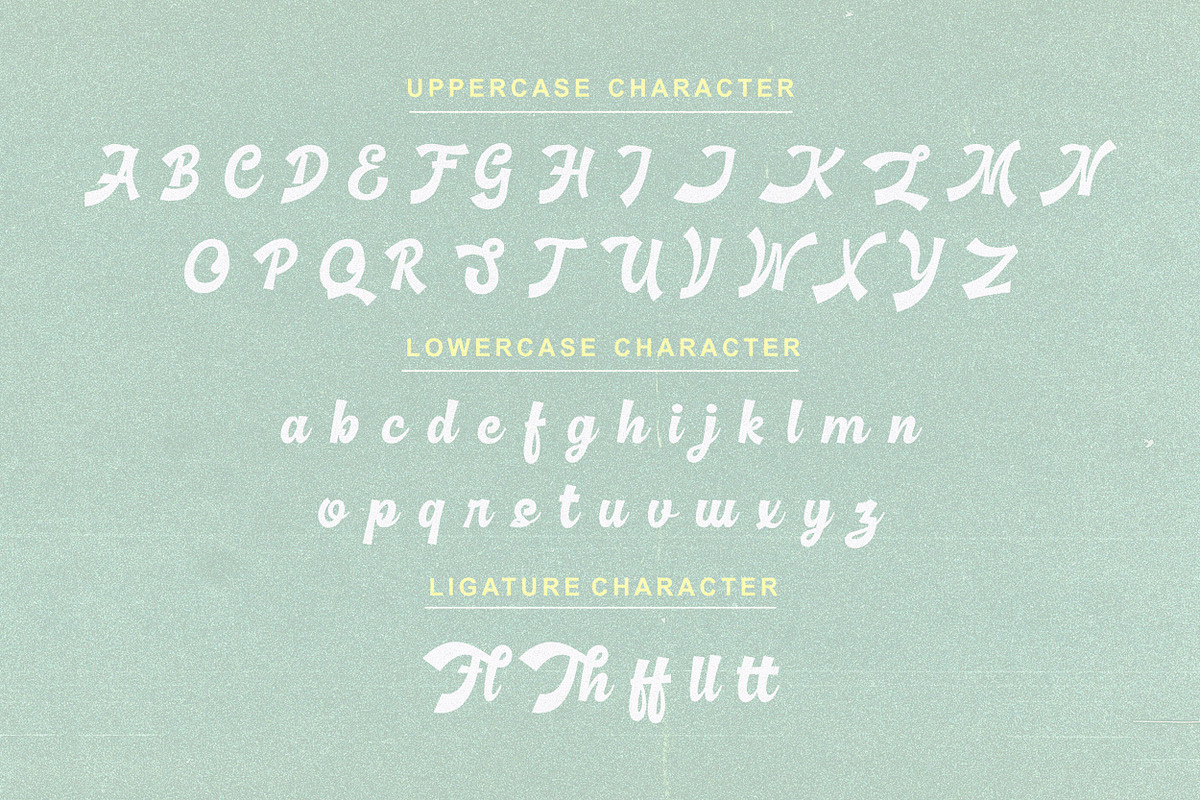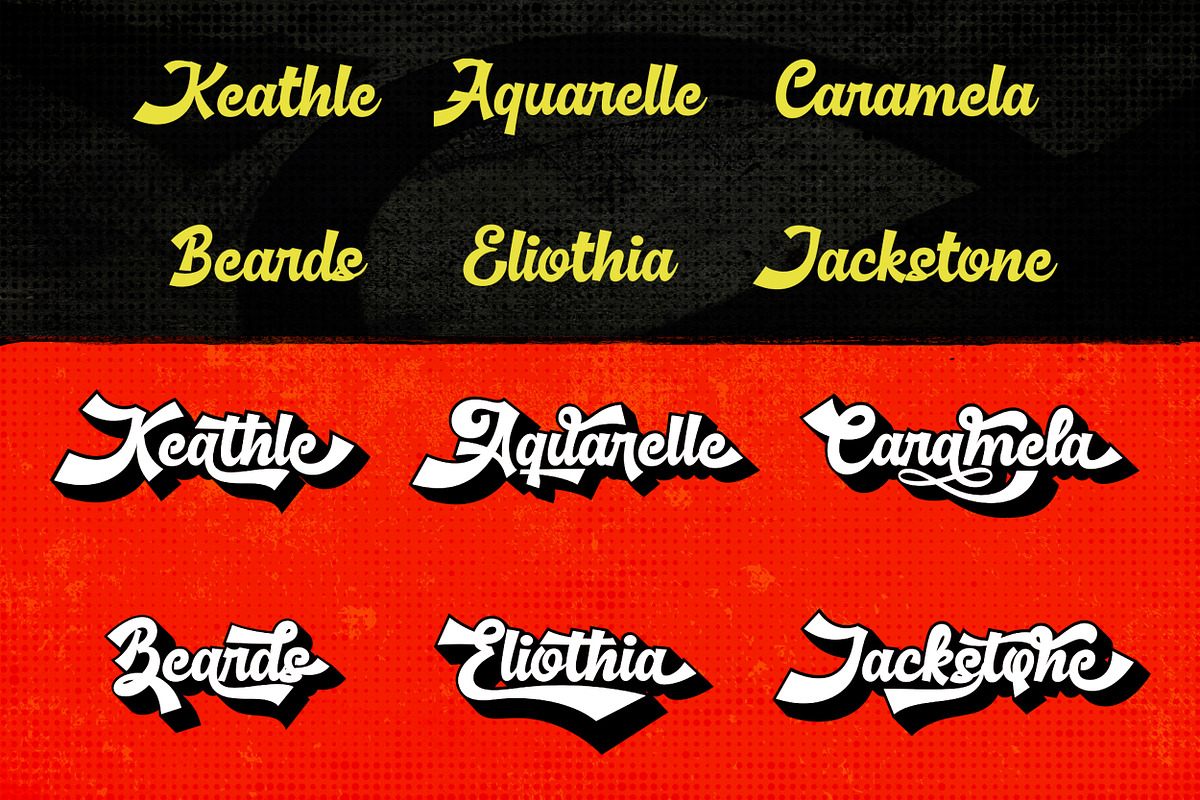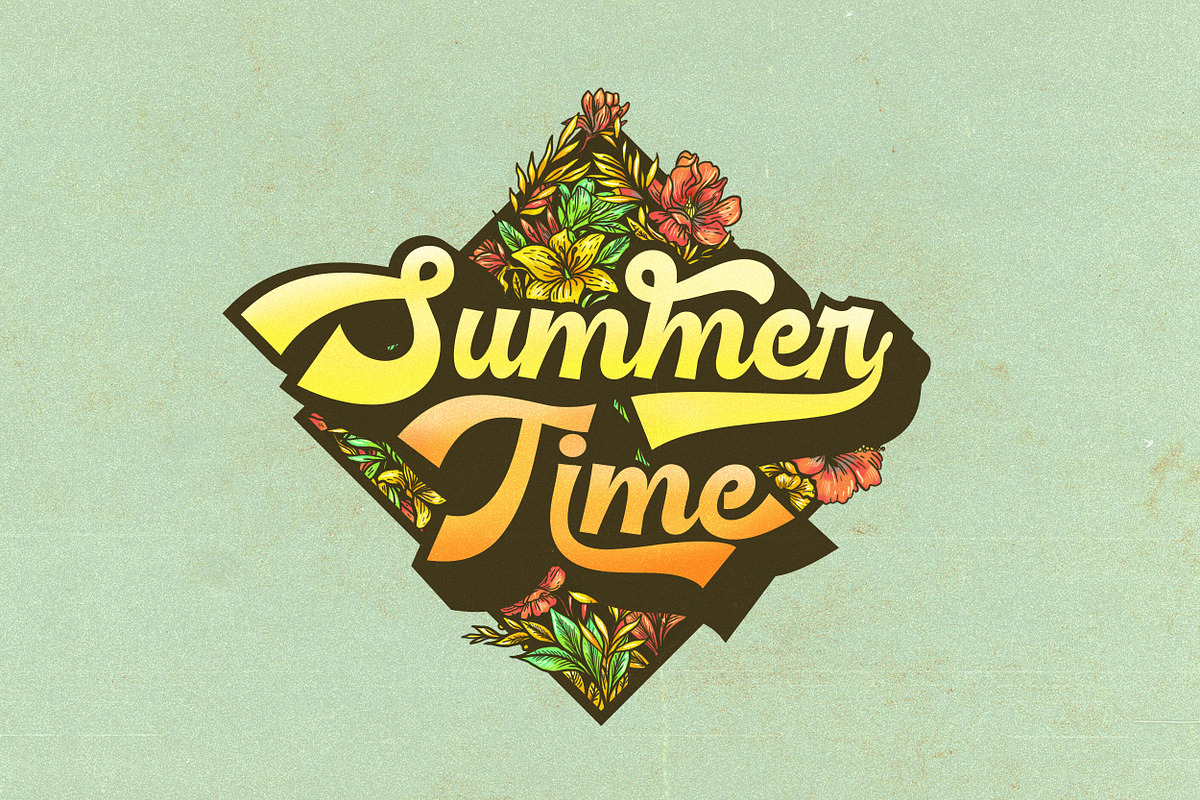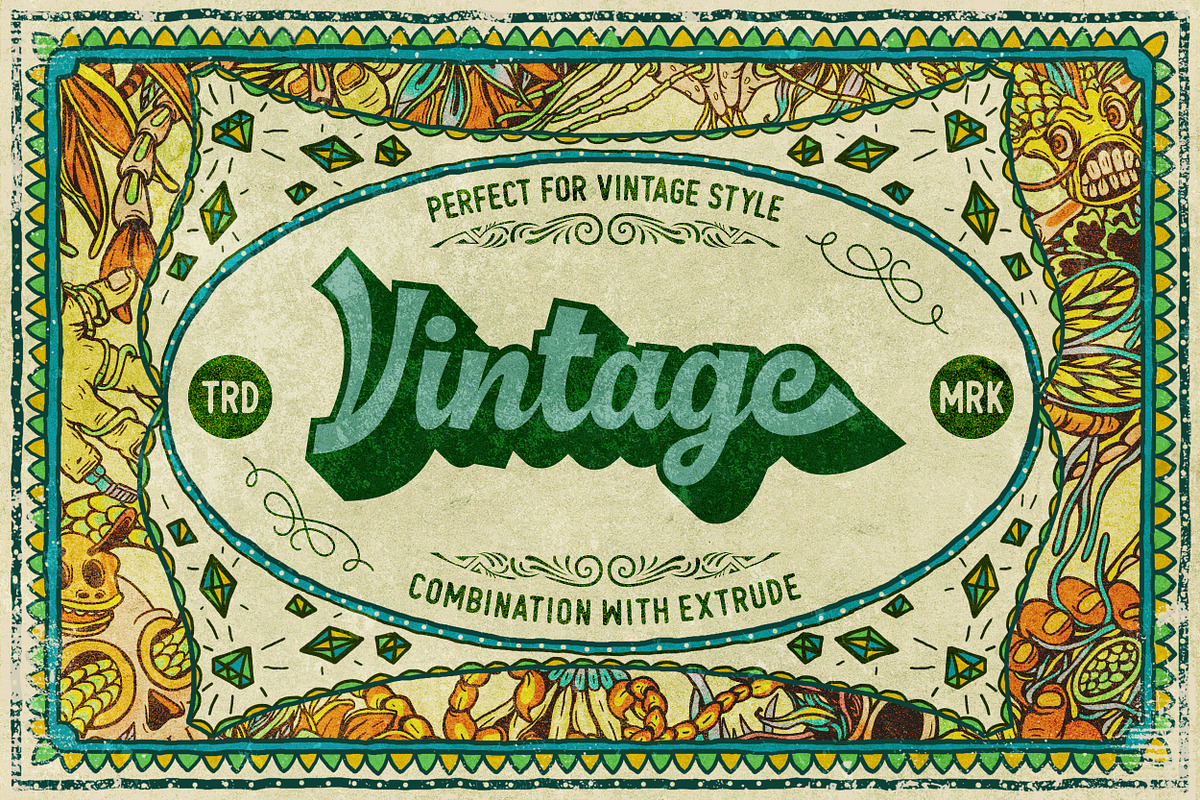
Basuki Script Font
Basuki script font comes with a retro, modern and vintage touch in it. Inspired by dinamic culture, sign and badges design. Basuki Script comes with uppercase, lowercase, extrude effect, numerals, punctuations and so many variations on each characters include opentype alternates. This font is great for your creative project such as logos, posters. invitations cards, packaging, badges, logotype, apparel design and Label. But don't let we restrain your imagination of course. Work well on both vintage and modern design. You can see our design implementation on preview images to check the result sample. Basuki Script looks Perfect for use in anything from Branding, Web, Packaging, Etc.
PUA Encoded ( 100% Accessible ) Standard Character ( Uppercase, Lowercase, Numeric, Currency, Punctuation ) Multilingual Support Alternates Character Ligature
Why Basuki Script Font is worth a look
Basuki Script Font by Allmostudio fits naturally into Branding, posters, packaging, typography.